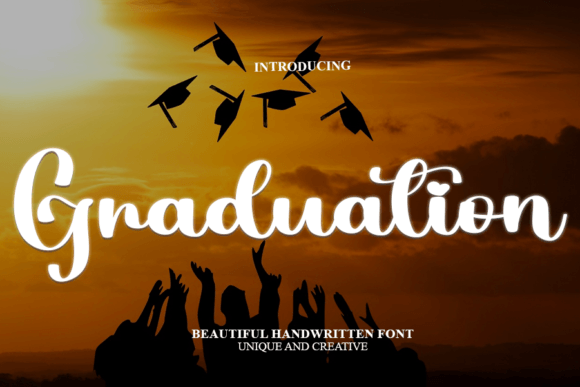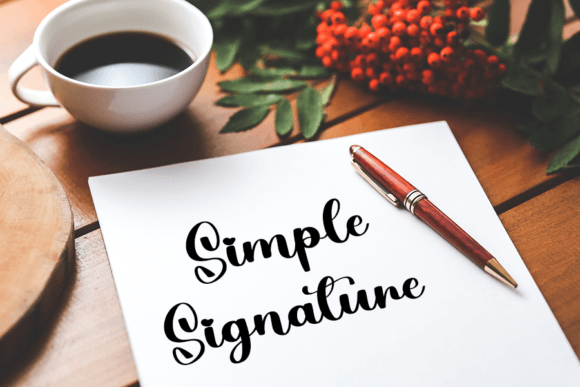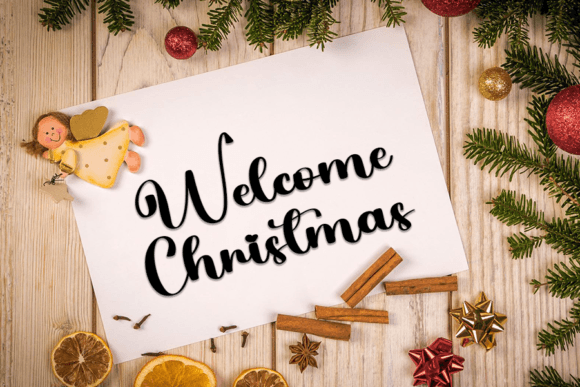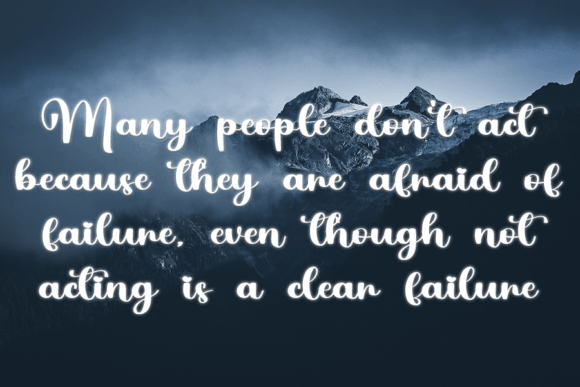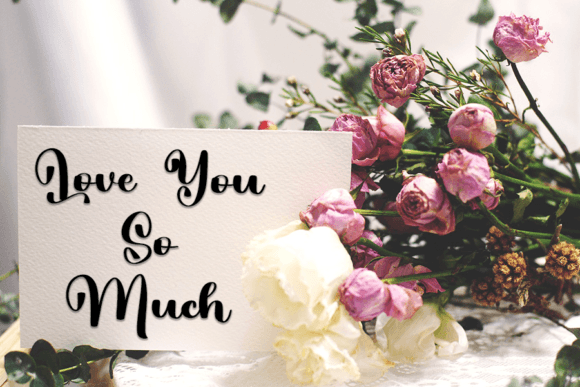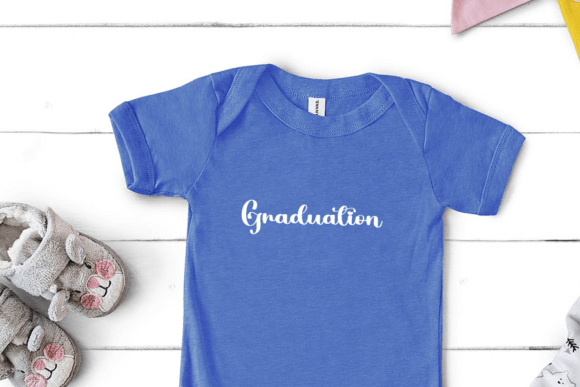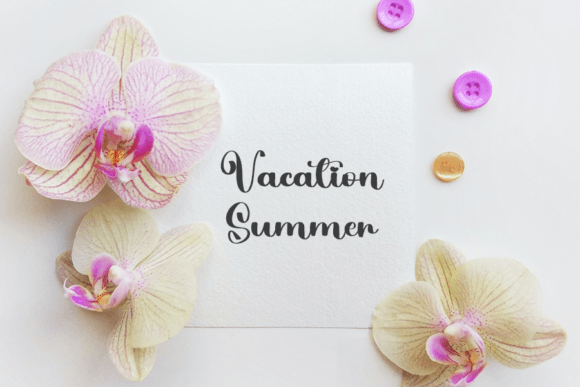
The Perfect Script: Discovering the Graduation Font
As designers, we’ve all been there – staring at a blank page, searching for the perfect font to bring our vision to life. The words “Graduation Font” whispered in my mind one day, and I knew I had to explore it. I spent hours browsing through the endless options, and then, I stumbled upon Graduation – a stunning handwritten font that perfectly captured the essence of classic calligraphy.
This elegant font, with its modern vibe and spotless form, is designed to elevate the beauty of your projects. Its balanced and varied design makes it a versatile choice for any creative endeavor. Whether you’re crafting a wedding invitation, designing a logo, or writing a heartfelt letter, Graduation Font is sure to add a touch of sophistication and style.
- Unique Characteristics: Graduation Font features a unique, hand-drawn design with subtle flair and texture, giving it a distinctive and elegant feel.
Graduation Font Review
Overall, I think the Graduation Font is a unique and eye-catching choice for any design project. ✨ It’s a great option for those looking to add a sense of celebration and achievement to their work. Here are some of its strengths:
- ✨ The font’s custom designs and illustrations make it a great choice for creating visually appealing graphics and titles.
- ✨ The font’s bold and playful feel makes it perfect for designs related to education, achievement, and milestone celebrations.
- ✨ The font is highly customizable, allowing designers to tailor it to their specific needs and design aesthetic.
- ⚠️ The font’s complexity can make it difficult to read in certain contexts, particularly at smaller font sizes.
- ⚠️ Some of the custom designs and illustrations may not be suitable for all design projects or audiences.
Overall, I think the Graduation Font is a great choice for designers looking to add a touch of celebration and achievement to their work. With its unique designs and high level of customization, it’s a versatile and effective option for a variety of design projects.
The Graduation Font is perfect for creating certificates, diplomas, and other formal documents. It’s also great for creating eye-catching titles and headings for presentations, reports, and brochures. Use it to add a touch of sophistication and elegance to your designs.